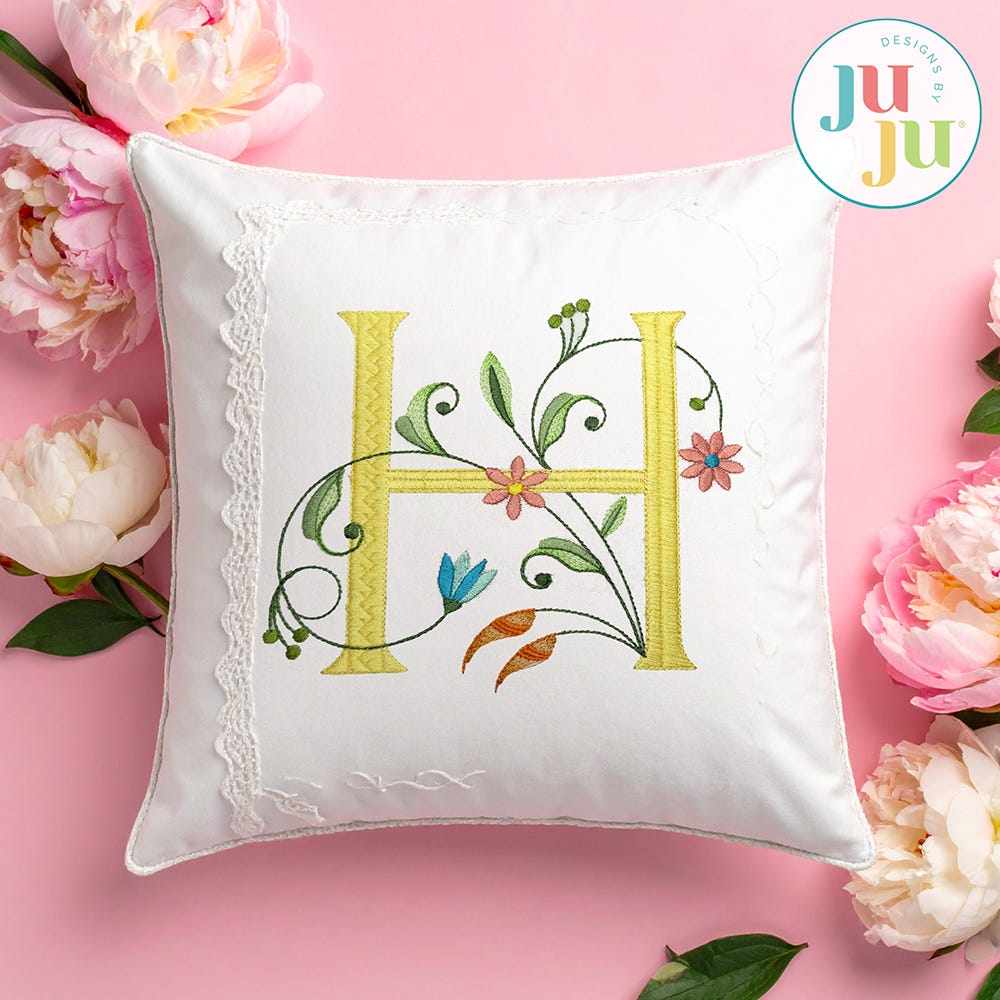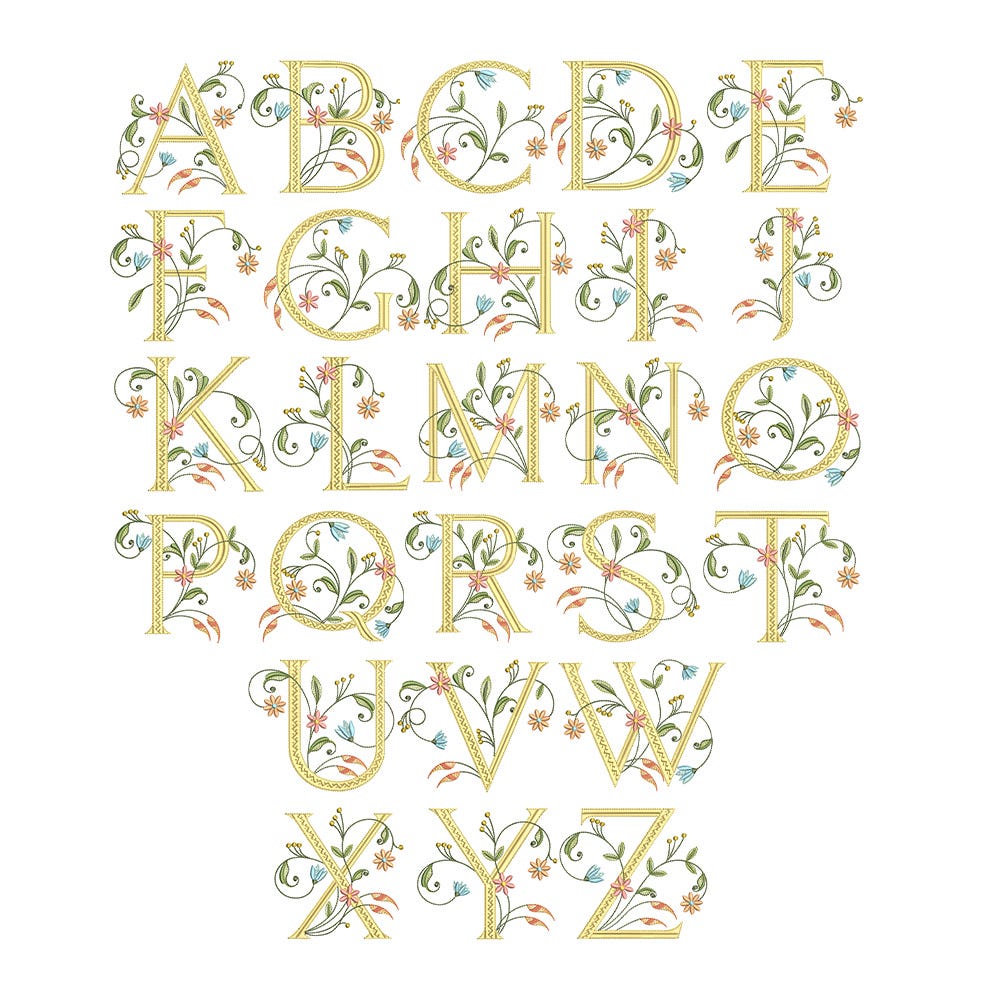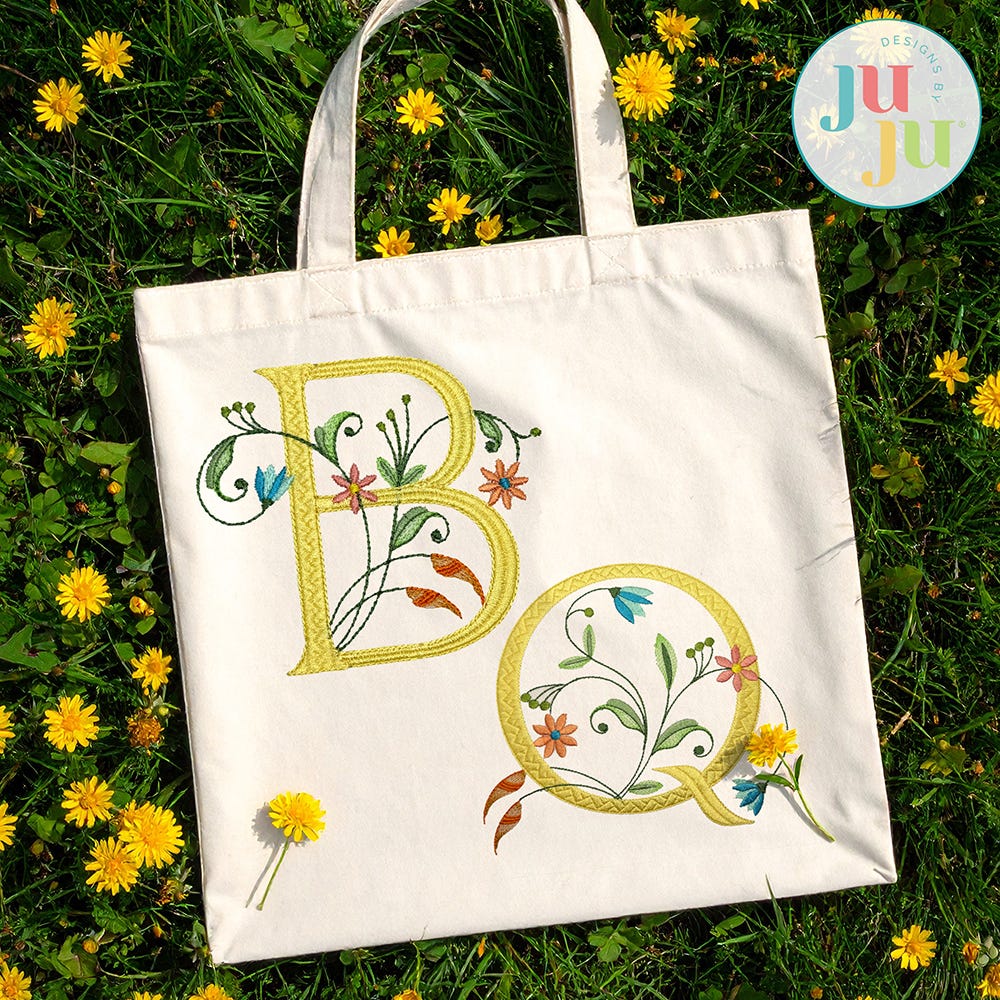
Meadow Chic Satin Stitch Monogram Embroidery Font
Add chic elegance to your projects with our Meadow Chic Monogram. This embroidery-only monogram features a beautiful blend of stitch types to create serif-style letters embellished with intricate florals and vines. This monogram exudes chic sophistication and is perfect for wedding gifts, seasonal decor, and so much more!
The sizing is based on the height of the overall design file. Because the vines extend beyond the letters on both sides, most design files are wider than they are tall. The 4" size does NOT fit in a 4x4 hoop. Please click the Size and Stitch Counts button below the photos on this page for details.